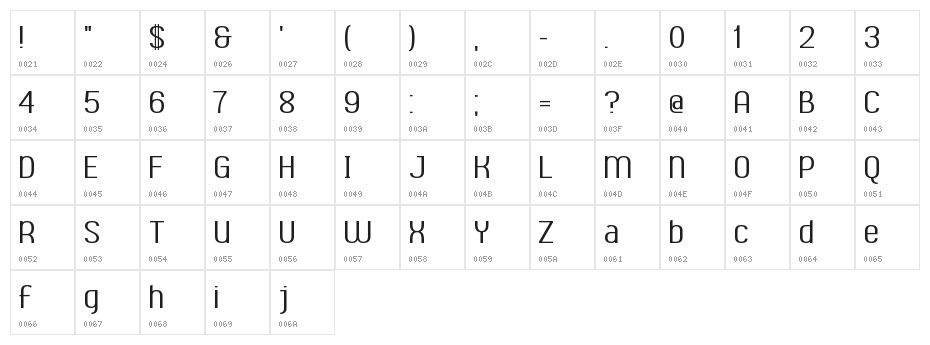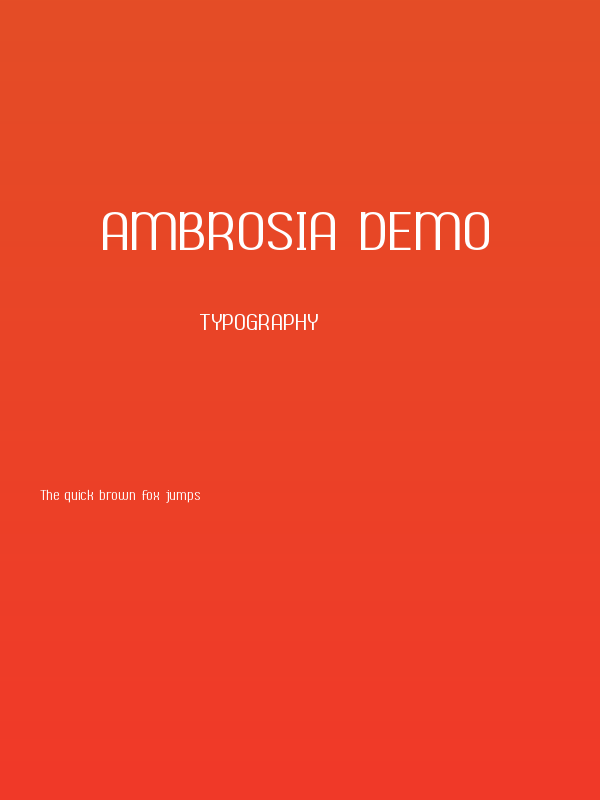
Ambrosia Demo Font
Ambrosia Demo Description
This font features a clean and modern aesthetic with a geometric sans-serif style. The characters are uniform in width, providing a balanced and harmonious appearance. The uppercase letters are tall and slightly condensed, while the lowercase letters maintain a consistent height, enhancing readability. The numerals are clear and distinct, matching the overall design. Special characters are included, maintaining the same geometric structure. This font is versatile, suitable for both digital and print media, offering a contemporary look that is both professional and approachable.
| Proposed Projects | Ideal for branding, web design, editorial layouts, and advertising campaigns. |